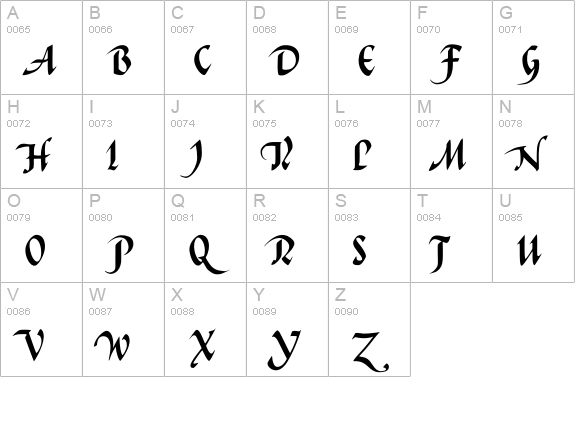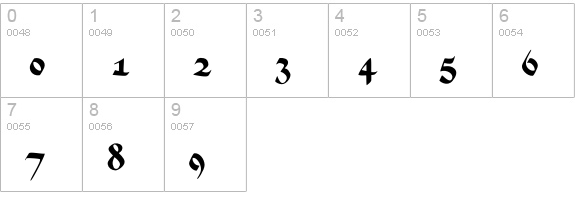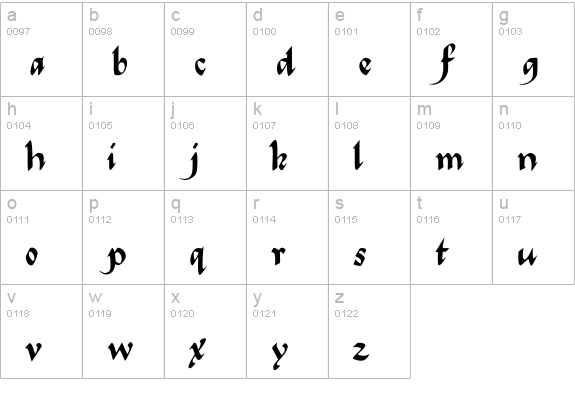
FlourishBold Font Details
FlourishBold is a beautifully crafted and elegant font that exudes sophistication and style. With its intricate flourishes and bold lettering, this font is perfect for creating eye-catching designs that demand attention. Whether you're designing a wedding invitation, a logo, or a poster, FlourishBold will add a touch of class to your project. The best part? FlourishBold is completely free to download at FontsMarket.com! This means you can easily access this stunning font and use it in your designs without any cost. Don't miss out on the opportunity to elevate your projects with the timeless beauty of FlourishBold. Download it today and watch your designs flourish!